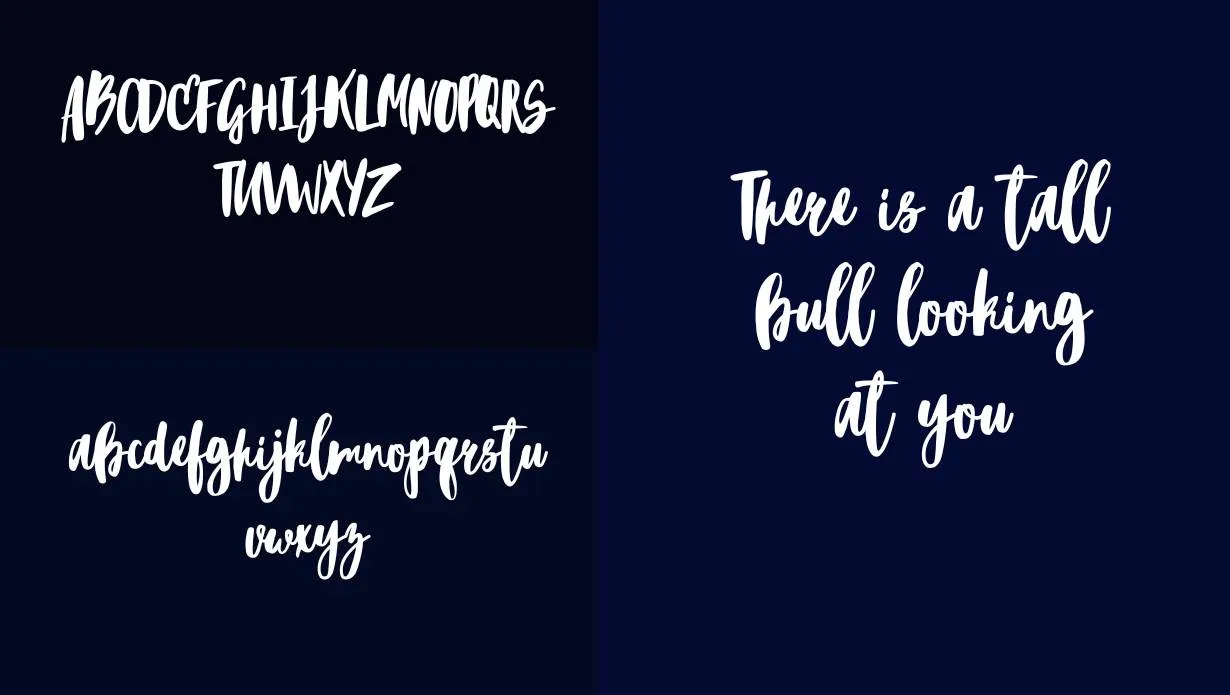
Blacktear font is the edgy friend with a cool vibe. Using it is like rocking a stylish leather jacket that makes a bold statement. It’s perfect for making bold statements or creating rock concert posters that demand attention.
The weight of Blacktear is confidently rebellious, adding a touch of attitude without being overpowering. Its width is edgy and bold, creating a visually striking impact.
This font adds a rebellious flair to your words, making them stand out with a bold and edgy vibe.